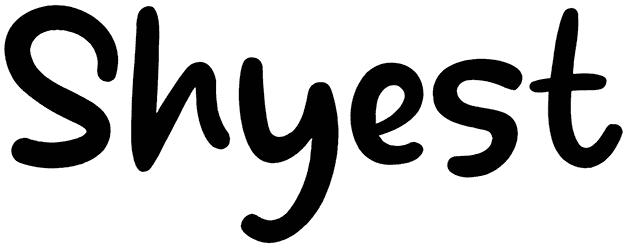
Shyest Font
With this nice and catchy handwritten font, you are able to create a cute and soft layout that can communicate well with your followers. The Shyest font has playful letters that can be matched with varied topics, namely a birthday party invitation card. Numbers are unavailable, but with three weights, this cartoon font will add a natural mood to your unique project.